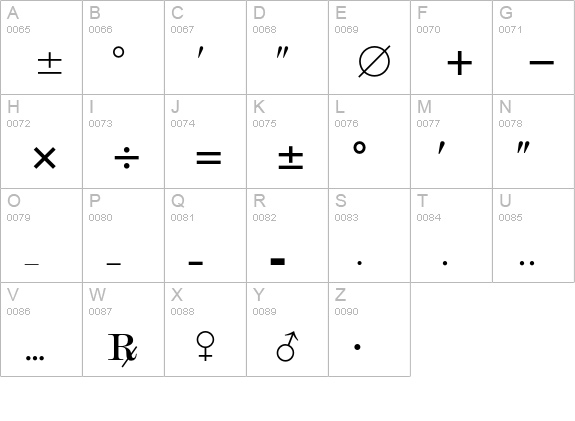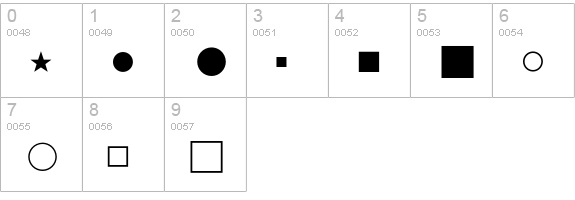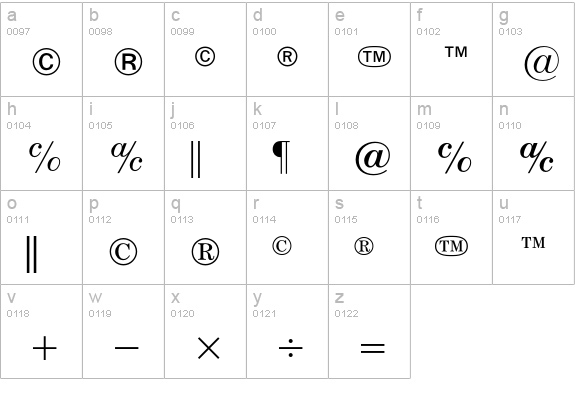
Commercial Pi Font Details
Commercial Pi font is a versatile and modern typeface that is perfect for various commercial projects. Its clean lines and elegant design make it suitable for logos, branding, advertisements, and more. The font features a unique mix of rounded and sharp edges, giving it a contemporary and professional look. Best of all, Commercial Pi font is available for free download at FontsMarket.com. This means you can easily access this high-quality font for your design needs without any cost. Don't miss out on the opportunity to enhance your projects with the stylish and eye-catching Commercial Pi font today!